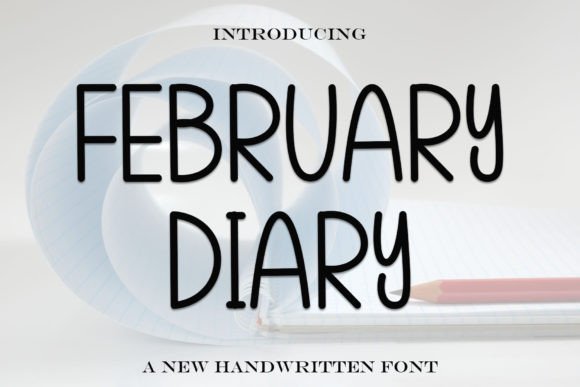
February Diary: A Designer’s Real-World Review
First glance at February Diary is like stepping into a quiet, sunlit studio—warm but precise, intimate but intentional. It’s not loud. It doesn’t shout. Instead, it leans in with soft contrast, gentle curves, and a subtle rhythm that feels handwritten without sacrificing structure. This isn’t a script font pretending to be spontaneous—it’s a display font with discipline. The lowercase ‘a’, ‘g’, and ‘e’ carry quiet personality; the uppercase letters hold posture without stiffness. There’s warmth in its weight distribution, clarity in its terminals, and just enough irregularity to feel human—not erratic.
What sets February Diary apart from other creative font options is how it balances presence with restraint. It reads as modern typography, but never at the cost of legibility or emotional resonance. It belongs in spaces where tone matters as much as text: artisanal packaging, editorial mastheads, boutique brand marks, and thoughtful social media graphics.
Where February Diary Earns Its Place
In logo design, February Diary shines for brands rooted in craft, calm, or curated experience—think ceramic studios, slow-fashion labels, indie bookshops, or wellness practices. It works best when paired with a neutral sans serif for body copy; the contrast elevates both. On product labels and packaging design, it communicates care and intentionality—especially in matte-finish prints or letterpress applications. Its spacing holds up beautifully on curved surfaces (like apothecary jars) and narrow bands (like tea box wraps).
For editorial design, it anchors section headers and pull quotes with quiet authority. In web design, it performs well in hero headers and blog titles—but only at sizes 36px and above. Below that, its delicate strokes begin to soften, especially on lower-DPI screens. As a commercial font, it adds distinction to digital ads and email banners when used sparingly—never as body text, always as focal punctuation.
February Diary also excels in printable design: wedding invitations, poetry broadsides, recipe cards, and stationery suites. Its rhythm supports breath and pause—ideal for content meant to be savored, not scanned. In social media graphics, it stands out on Instagram carousels and Pinterest pins where minimalism and mood drive engagement. And yes—it translates cleanly to Cricut projects and Canva templates, provided you export clean vector outlines and avoid aggressive scaling.
Where to Pause—and Why
This isn’t a workhorse. February Diary is not built for long paragraphs, data tables, navigation menus, or mobile interface labels. Its charm lives in brevity: short phrases, single words, brand names, and evocative accents. Use it for “Hand-Poured,” “Est. 2018,” or “Gather • Grow • Give”—not for ingredient lists or shipping policies.
It also demands context. Placed beside a bold serif font, it can feel timid. Paired with a tight sans serif font, it gains contrast—but only if tracking and line height are adjusted thoughtfully. Next to a flourished script font or energetic handwritten font, it risks looking overly composed. Its strength lies in contrast with simplicity—not competition with complexity.
Readability, Trust, and the Unspoken Contract
Readability isn’t about speed here—it’s about resonance. February Diary doesn’t rush the eye; it invites the reader to settle. That affects brand consistency in subtle but powerful ways: repeated use builds recognition through tone, not just shape. Audiences begin to associate its quiet confidence with authenticity—critical for small businesses and independent creators building trust without big-budget polish.
Yet professionalism isn’t automatic. Misuse erodes it fast: stretched caps, poor kerning, or low-contrast color combos (e.g., light gray on white) mute its voice and muddy its intent. For digital product creators, this means testing across devices—not just checking if it loads, but whether it *feels* right on a phone screen held at arm’s length.
Practical Designer Notes You’ll Actually Use
- Test it in black and white first. Color can mask structural weaknesses—February Diary should hold character even without hue.
- Check small-size readability at 14–18px on actual mockups—not just in your font menu. It’s not meant for fine print, but seeing how its counters close up helps gauge minimum viable size for captions or tags.
- Try it on real mockups: a kraft paper label, a linen tote bag, a muted Instagram post. Digital previews lie. Paper texture, screen glare, and ambient light change everything.
- Compare uppercase vs. lowercase usage. Uppercase feels more formal and grounded; lowercase leans poetic and personal. Choose deliberately—don’t default.
- Review spacing carefully. Default tracking often needs +10–20 units for headlines. Tighten slightly for logos, loosen for quotes.
- Pair it intentionally: try it beside a warm serif font (like Adobe Garamond), a clean sans serif font (like Inter or Poppins), a restrained script font (not swashy—think subtle entry/exit strokes), and another display font with opposing energy (e.g., a geometric or monoline option). Notice where hierarchy clicks—and where it collapses.
February Diary won’t solve every typographic problem—and it shouldn’t. It’s not a Swiss Army knife. It’s a well-honed chisel: precise, expressive, and quietly confident. When aligned with the right voice, audience, and medium, it deepens meaning instead of decorating it. For designers building brand identity with intention—not just aesthetics—it’s less a tool and more a collaborator. One that reminds us that sometimes, the most powerful statements are made softly.